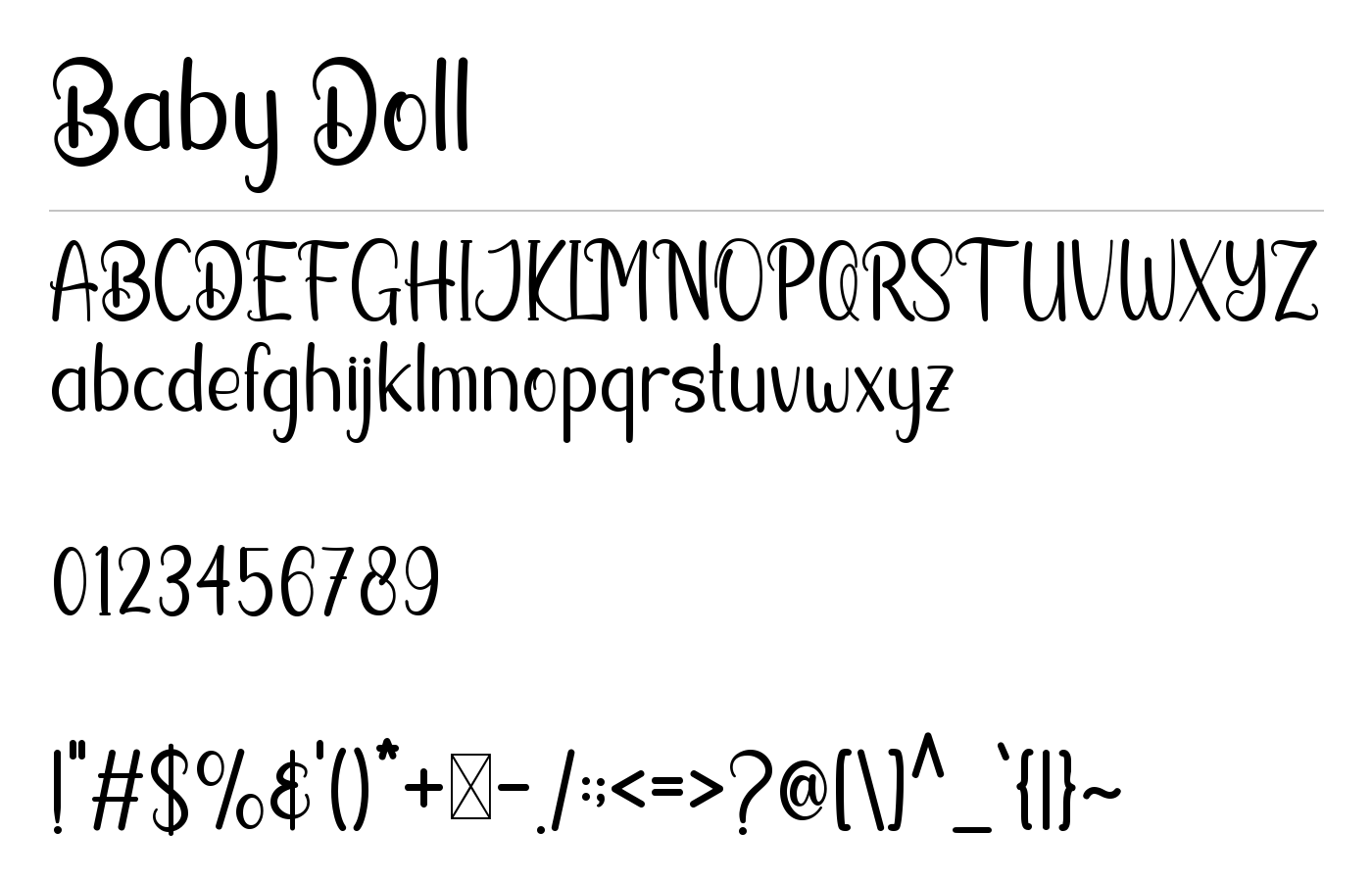
Baby Doll is a playful and whimsical sans-serif font with a hand-drawn, casual feel. It features tall, narrow letterforms with lively loops and curls, creating a light, friendly appearance perfect for children’s products, playful branding, or informal invitations. Its unique, decorative character shapes add personality while maintaining good readability for headlines and display use.
Baby Doll Font
About Baby Doll Font